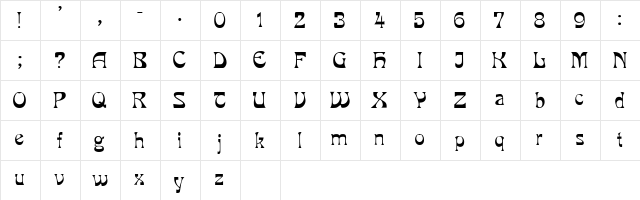
PescaderoSSK Regular
Design Context for PescaderoSSK Typeface
PescaderoSSK is a composed and adaptable typeface that performs quietly and consistently across a wide range of design contexts.